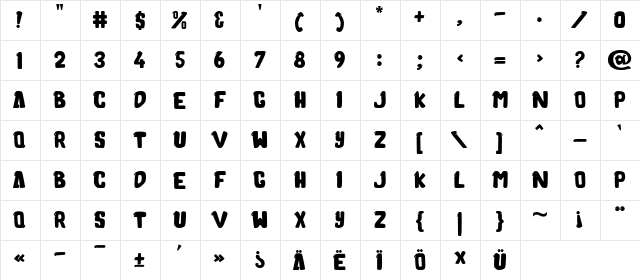
Molusca Regular
Design Context for Molusca Typeface
Molusca is a composed and adaptable typeface that performs quietly and consistently across a wide range of design contexts.